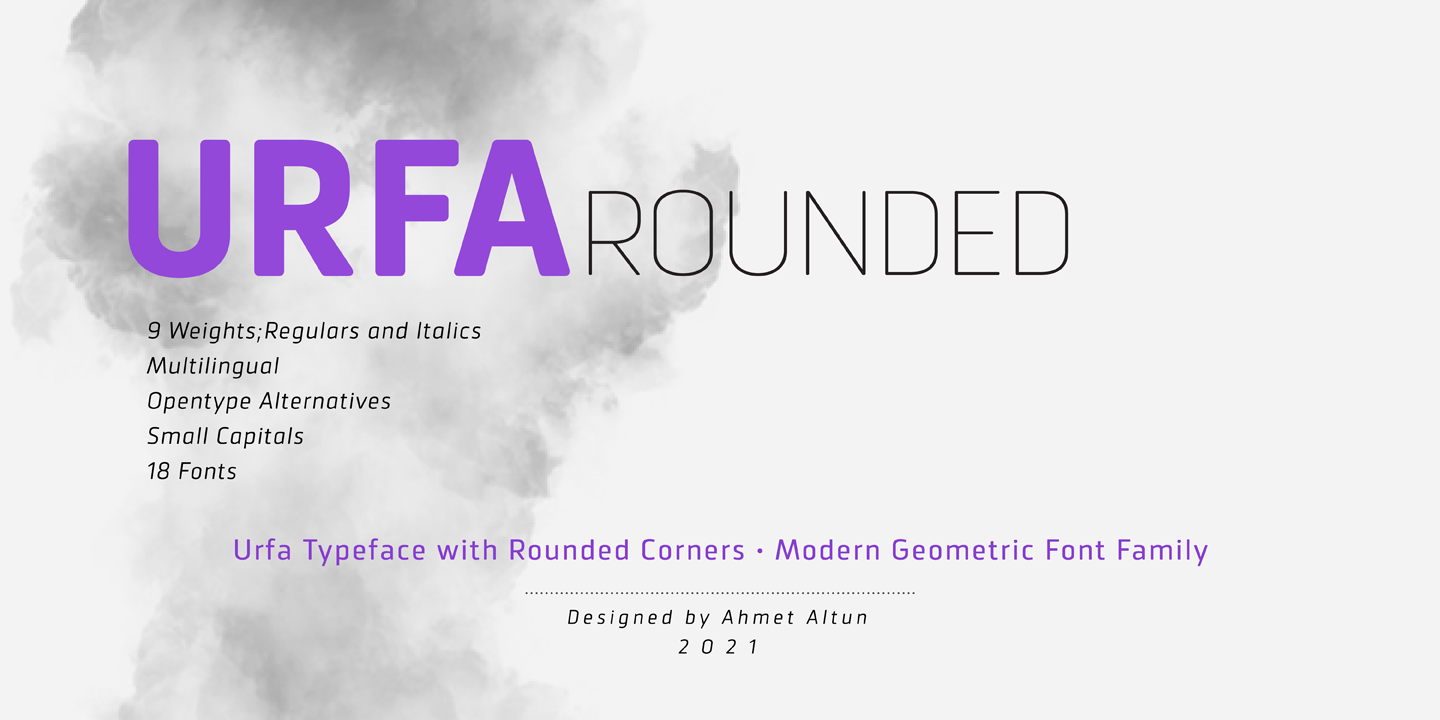
Perfect for Turkish cultural branding, Middle Eastern heritage materials, warm hospitality marketing, traditional cuisine restaurant signage, cultural tourism promotions, artisan craft labels, historic preservation projects, and authentic regional storytelling applications.
This font is exciting because it captures the warm hospitality and ancient wisdom of Anatolian heritage with softly rounded letterforms that embody the cultural richness and timeless elegance found in traditional Turkish craftsmanship and regional cultural traditions.
Embrace the warm elegance of Anatolian heritage with Urfa Rounded Font Free Download, a culturally rich typeface that embodies the ancient wisdom and generous hospitality of traditional Turkish cultural traditions. This exceptional font brings the timeless warmth and regional sophistication of Middle Eastern heritage to contemporary design projects, making it perfect for cultural organizations, hospitality businesses, and heritage preservation institutions seeking to convey the authentic charm and cultural depth of Turkish traditions and Anatolian regional heritage.
Urfa Rounded Font features warmly rounded letterforms with cultural characteristics and heritage proportions that immediately evoke the generous hospitality and ancient wisdom of Anatolian cultural traditions. The thoughtfully crafted characters combine regional aesthetics with contemporary functionality, creating immediate associations with cultural authenticity, traditional warmth, and the timeless elegance that defines authentic Turkish heritage and Middle Eastern cultural sophistication throughout traditional craft and hospitality communities worldwide.
The font's remarkable cultural character makes it invaluable for Turkish restaurants, cultural centers, and heritage tourism organizations where conveying authentic warmth and regional cultural depth is essential for building genuine connections and celebrating traditional values. Whether you're designing materials for Turkish cuisine establishments celebrating traditional culinary heritage, creating promotional content for cultural festivals showcasing Anatolian traditions, or developing brand identities for artisan craft businesses, Urfa Rounded Font delivers the authentic regional aesthetic that resonates with audiences seeking genuine cultural experiences and traditional Turkish hospitality.
Turkish cultural professionals and Middle Eastern heritage specialists worldwide choose the Urfa Rounded Font Free Download for projects requiring regional authenticity and cultural warmth appeal. The font works brilliantly for cultural museums showcasing Turkish historical artifacts, traditional craft cooperatives preserving artisan techniques, heritage tourism operators promoting Anatolian cultural sites, and any organization seeking to establish connections with audiences who appreciate Turkish cultural richness and the warm hospitality traditions of Middle Eastern regional heritage and community values.
The comprehensive Urfa Rounded Font family includes variations that maintain the signature warm character while providing design flexibility for diverse cultural and heritage applications. Each character demonstrates exceptional attention to regional design principles, ensuring the authentic character remains culturally respectful and visually appealing across all sizes, from detailed cultural publication typography to large-scale heritage site signage and traditional festival materials.
This typeface excels in applications where creating atmosphere of cultural warmth and regional authenticity is crucial for establishing heritage credibility and traditional connection. The rounded letterforms create immediate associations with generous hospitality that eliminates the need for additional cultural symbols, allowing the typography itself to communicate regional pride, cultural respect, and the timeless warmth that Turkish heritage represents in cultural preservation and traditional hospitality.
Urfa Rounded Font's technical excellence ensures optimal performance across both traditional cultural materials and modern digital platforms used for heritage promotion and Turkish cultural communications. The distinctive letterforms maintain their warm appeal when reproduced on various materials, from cultural publications to digital displays that must convey authentic regional character and traditional Turkish elegance.